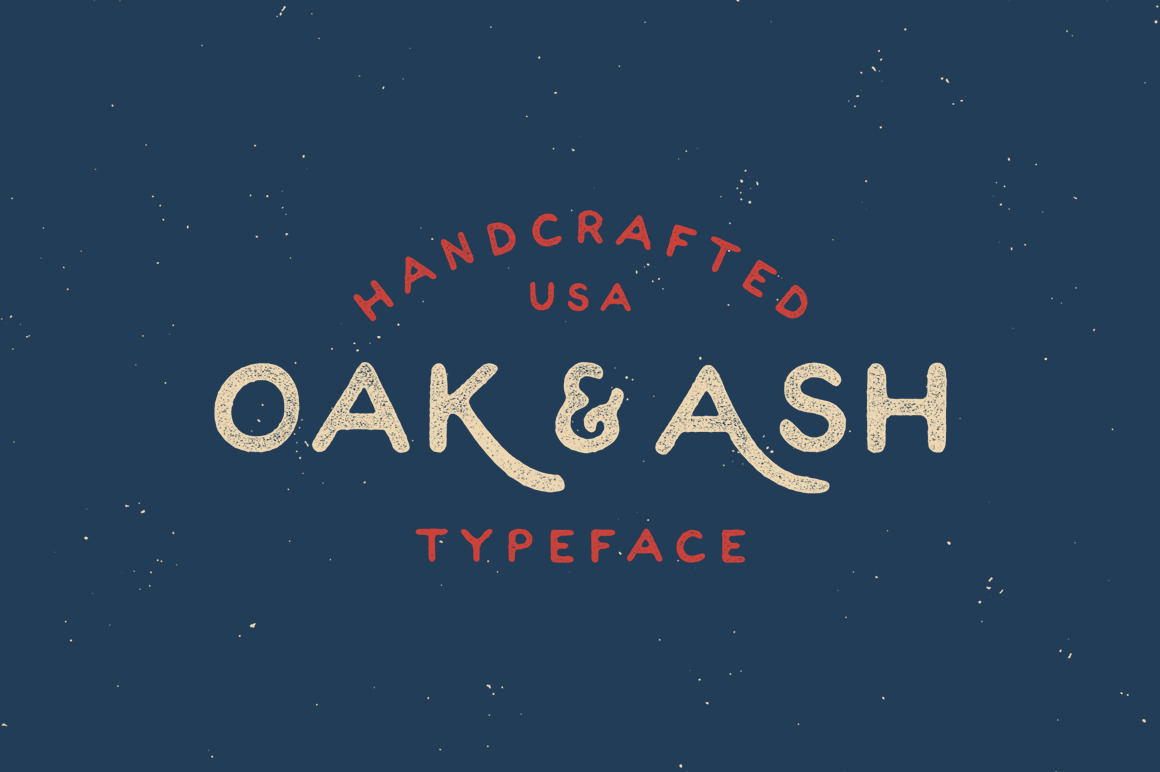
Oak & Ash - Hand Drawn Font
If you liked Parker, you'll love Oak & Ash. This is a cleaned up version with some alternates as capital letters. It's perfect for your hand drawn logos and branding. This font comes in .TTF format and includes 10 numbers, Various Glyphs, 26 letters with 5 alternates. This font is best when used with my other hand drawn fonts: Sergeant and Pearl District. Grab it now for the Introductory rate of only $12.